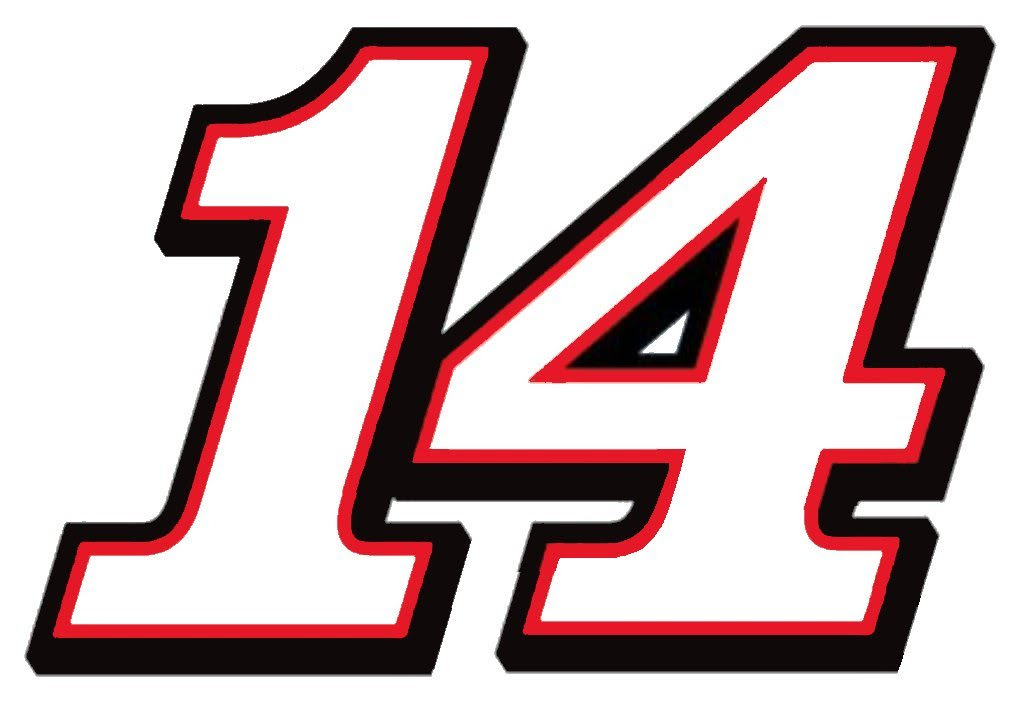
Race Car Numbers Font
Race Car Numbers Font - It is italic and looks like the font that most race cars use as their number decals. This font is heavy to load and may freeze or crash the windows font. Racing numbers € by xerographer. Forum → font identification → back to the list. Though i suspect you'll want the convex effect for track applications. Race sport is a modern techno display font, strong unique style instantly add power and movement to your projects. I am trying to find a font that i used a while ago. And if brannt isn't enough, if you want even more options, switch to brannt.
And if brannt isn't enough, if you want even more options, switch to brannt. It is italic and looks like the font that most race cars use as their number decals. I am trying to find a font that i used a while ago. Race sport is a modern techno display font, strong unique style instantly add power and movement to your projects. This font is heavy to load and may freeze or crash the windows font. Though i suspect you'll want the convex effect for track applications. Forum → font identification → back to the list. Racing numbers € by xerographer.
Forum → font identification → back to the list. I am trying to find a font that i used a while ago. This font is heavy to load and may freeze or crash the windows font. And if brannt isn't enough, if you want even more options, switch to brannt. Race sport is a modern techno display font, strong unique style instantly add power and movement to your projects. Racing numbers € by xerographer. It is italic and looks like the font that most race cars use as their number decals. Though i suspect you'll want the convex effect for track applications.
Race sport is a modern techno display font, strong unique style instantly add power and movement to your projects. And if brannt isn't enough, if you want even more options, switch to brannt. This font is heavy to load and may freeze or crash the windows font. It is italic and looks like the font that most race cars use.
And if brannt isn't enough, if you want even more options, switch to brannt. I am trying to find a font that i used a while ago. It is italic and looks like the font that most race cars use as their number decals. Racing numbers € by xerographer. Race sport is a modern techno display font, strong unique style.
Though i suspect you'll want the convex effect for track applications. Racing numbers € by xerographer. Race sport is a modern techno display font, strong unique style instantly add power and movement to your projects. This font is heavy to load and may freeze or crash the windows font. It is italic and looks like the font that most race.
I am trying to find a font that i used a while ago. Race sport is a modern techno display font, strong unique style instantly add power and movement to your projects. It is italic and looks like the font that most race cars use as their number decals. And if brannt isn't enough, if you want even more options,.
It is italic and looks like the font that most race cars use as their number decals. Forum → font identification → back to the list. This font is heavy to load and may freeze or crash the windows font. And if brannt isn't enough, if you want even more options, switch to brannt. Though i suspect you'll want the.
Forum → font identification → back to the list. And if brannt isn't enough, if you want even more options, switch to brannt. I am trying to find a font that i used a while ago. Though i suspect you'll want the convex effect for track applications. It is italic and looks like the font that most race cars use.
Vintage Race Car Number Fonts
And if brannt isn't enough, if you want even more options, switch to brannt. Race sport is a modern techno display font, strong unique style instantly add power and movement to your projects. Though i suspect you'll want the convex effect for track applications. I am trying to find a font that i used a while ago. This font is.
Race Car Numbers Font IMAGESEE
Forum → font identification → back to the list. And if brannt isn't enough, if you want even more options, switch to brannt. Racing numbers € by xerographer. This font is heavy to load and may freeze or crash the windows font. Though i suspect you'll want the convex effect for track applications.
10 Racing Number Fonts Images Race Car Number Fonts, NASCAR Race Car
This font is heavy to load and may freeze or crash the windows font. And if brannt isn't enough, if you want even more options, switch to brannt. It is italic and looks like the font that most race cars use as their number decals. Forum → font identification → back to the list. Race sport is a modern techno.
race car number fonts dafont
I am trying to find a font that i used a while ago. It is italic and looks like the font that most race cars use as their number decals. Racing numbers € by xerographer. And if brannt isn't enough, if you want even more options, switch to brannt. Race sport is a modern techno display font, strong unique style.
It Is Italic And Looks Like The Font That Most Race Cars Use As Their Number Decals.
Racing numbers € by xerographer. And if brannt isn't enough, if you want even more options, switch to brannt. I am trying to find a font that i used a while ago. Though i suspect you'll want the convex effect for track applications.
Race sport is a modern techno display font, strong unique style instantly add power and movement to your projects. Forum → font identification → back to the list.